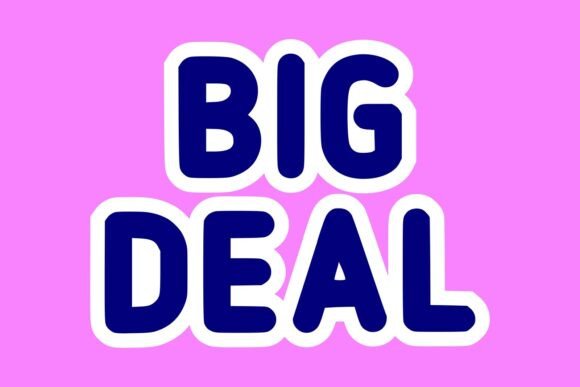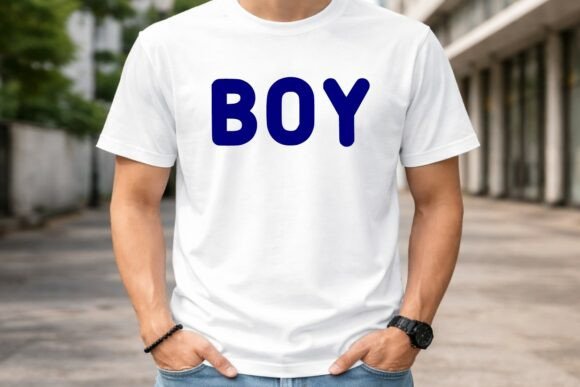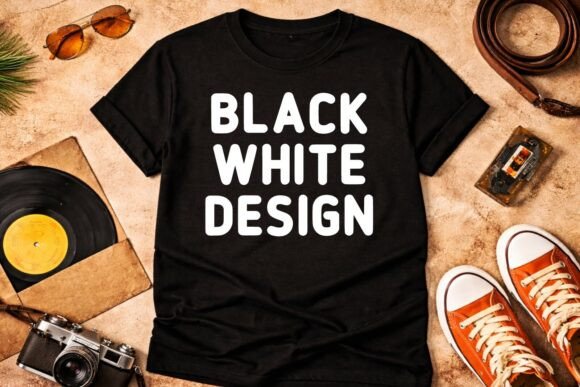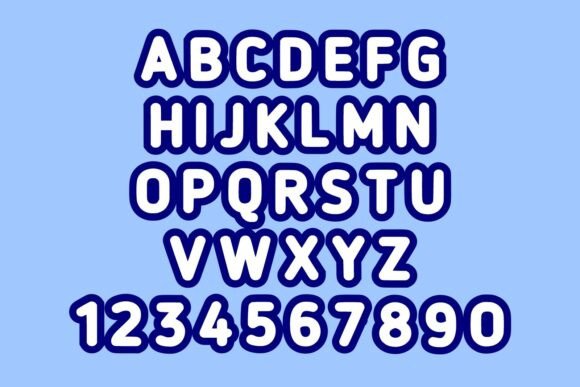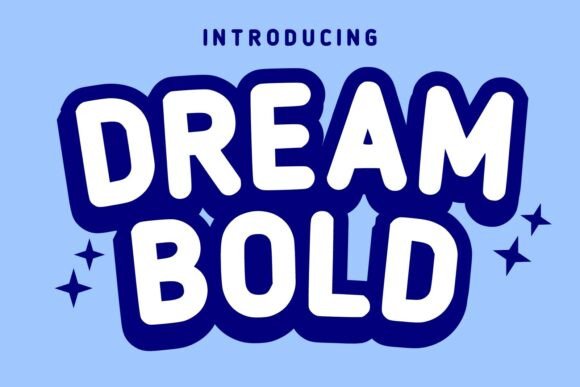
Dream Bold Font: The Ultimate Choice for Fun and Eye-Catching Designs
Are you looking for a font that can add a touch of energy and positivity to your designs? Look no further than Dream Bold Font! This fun and eye-catching bubble display font is perfect for kids designs, posters, branding, logos, social media graphics, and playful typography projects. In this article, we’ll take a closer look at the features and benefits of Dream Bold Font and explore how it can elevate your designs to the next level.
What is Dream Bold Font?
Dream Bold Font is a unique and stylish font that features thick, rounded shapes and a bold outline style. Its soft curves and chunky style create a friendly and modern look that stands out in any design. The font’s design is inspired by the playful and carefree spirit of childhood, making it perfect for projects that require a fun and youthful vibe.
Key Features of Dream Bold Font
- Thick, rounded shapes: The font’s rounded shapes give it a soft and friendly appearance that’s perfect for designs that require a playful touch.
- Bold outline style: The bold outline style adds depth and dimension to the font, making it stand out in any design.
- Soft curves: The font’s soft curves create a smooth and modern look that’s perfect for designs that require a touch of elegance.
- Chunky style: The font’s chunky style adds a playful and energetic touch to any design.
Use Cases for Dream Bold Font
Dream Bold Font is a versatile font that can be used in a variety of design projects, including:
- Kids designs: The font’s playful and youthful vibe makes it perfect for designs aimed at kids, such as children’s books, educational materials, and kids’ clothing.
- Posters: The font’s bold and eye-catching style makes it perfect for posters that require a strong visual impact.
- Branding and logos: The font’s unique and stylish design makes it perfect for branding and logo design projects that require a memorable and distinctive look.
- Social media graphics: The font’s playful and modern style makes it perfect for social media graphics that require a fun and engaging look.
- Playful typography projects: The font’s bold and chunky style makes it perfect for playful typography projects that require a fun and creative look.
Benefits of Using Dream Bold Font
Using Dream Bold Font in your designs can have a number of benefits, including:
- Increased visual impact: The font’s bold and eye-catching style can help your designs stand out and grab attention.
- Improved engagement: The font’s playful and youthful vibe can help engage your audience and make your designs more memorable.
- Enhanced creativity: The font’s unique and stylish design can inspire creativity and help you think outside the box.
- Time-saving: The font’s versatility and wide range of use cases can save you time and effort in finding the right font for your projects.
Tips and Tricks for Using Dream Bold Font
Here are some tips and tricks for getting the most out of Dream Bold Font:
- Experiment with different colors: The font’s bold and eye-catching style makes it perfect for experimenting with different colors and color combinations.
- Use it in combination with other fonts: The font’s unique and stylish design makes it perfect for using in combination with other fonts to create a distinctive look.
- Play with different sizes: The font’s chunky style makes it perfect for using in different sizes to create visual interest and hierarchy.
| Font Name | Dream Bold Font |
| Author | mardanimirza12 |
Dream Bold Font is a fun and eye-catching bubble display font that’s perfect for designers and crafters looking to add a touch of energy and positivity to their designs. With its thick, rounded shapes, bold outline style, soft curves, and chunky style, this font is sure to stand out in any design. Whether you’re working on kids designs, posters, branding, logos, social media graphics, or playful typography projects, Dream Bold Font is the ultimate choice for creating fun and engaging designs.